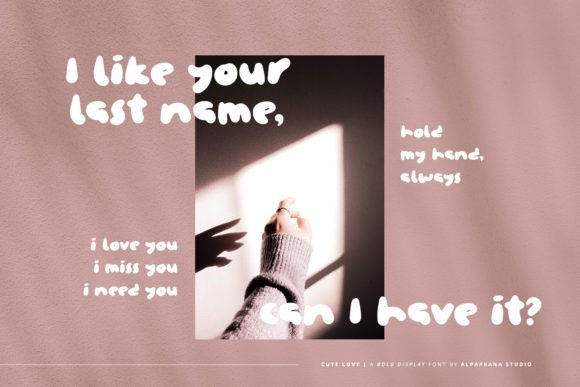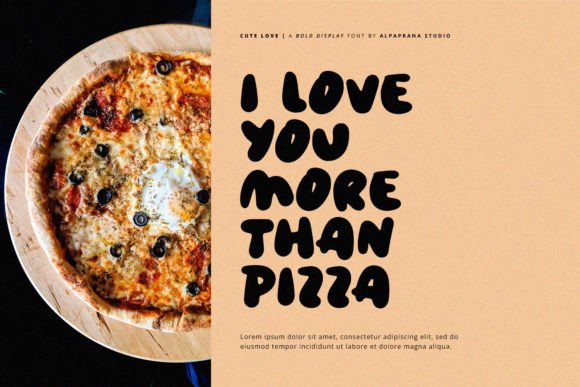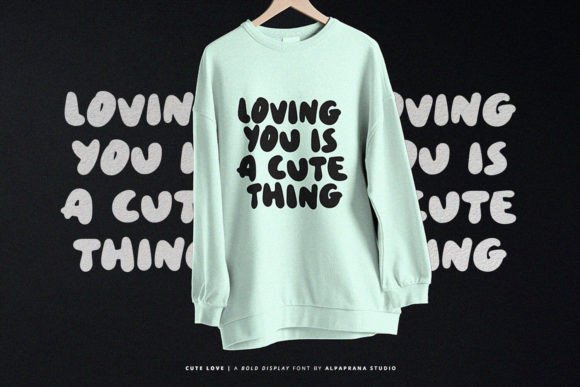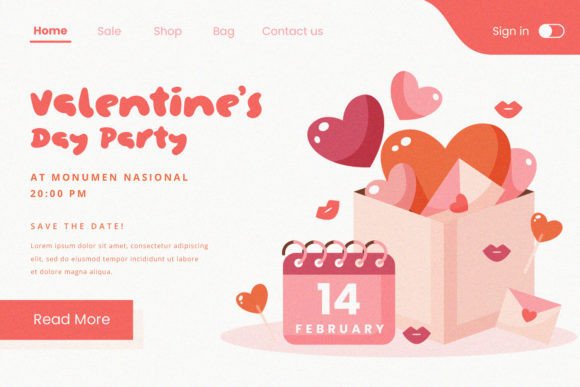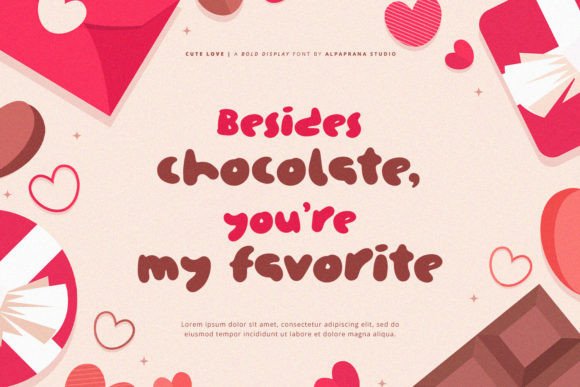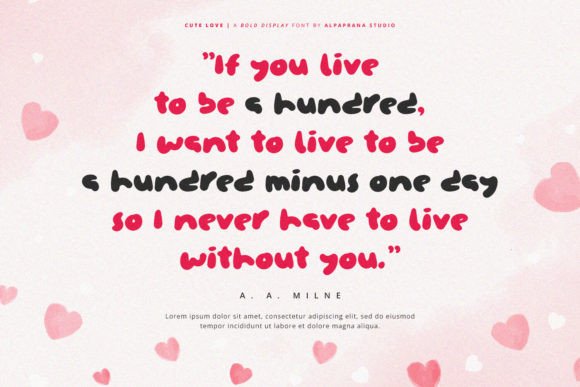
Cute Love Font: The Perfect Addition to Your Design Projects
Are you a designer or crafter looking for a font that exudes romance and modernity? Look no further than Cute Love Font! This display font is perfect for a variety of design projects, from magazines and packaging to posters and t-shirts. In this article, we’ll dive into the features and benefits of Cute Love Font, and explore how it can elevate your designs.
What is Cute Love Font?
Cute Love Font is a display font designed with romantic and modern feels. Its unique and stylish lettering makes it perfect for designs that require a touch of elegance and sophistication. The font is versatile and can be used for a wide range of projects, including:
- Magazines and editorials
- Packaging and branding
- Shopping bags and promotional materials
- T-shirts and apparel
- Book covers and publishing
- Photography and graphic design
- Special events and weddings
Features of Cute Love Font
Cute Love Font has several features that make it a standout choice for designers and crafters. Some of its key features include:
- Romantic and modern design: Cute Love Font has a unique and stylish lettering that exudes romance and modernity.
- High-quality and legible: The font is designed to be highly legible, making it perfect for use in a variety of design projects.
- Versatile and flexible: Cute Love Font can be used for a wide range of projects, from small-scale designs like t-shirts and flyers to large-scale projects like billboards and magazines.
- Easily customizable: The font can be easily customized to fit your design needs, including adjusting the size, color, and style.
Benefits of Using Cute Love Font
Using Cute Love Font in your design projects can have several benefits, including:
- Adding a touch of elegance and sophistication: Cute Love Font can add a touch of elegance and sophistication to your designs, making them stand out from the crowd.
- Conveying romance and emotion: The font’s romantic and modern design makes it perfect for conveying emotion and sentiment in your designs.
- Enhancing brand identity: Cute Love Font can be used to enhance brand identity and create a consistent visual style across different design projects.
- Saving time and effort: The font’s high-quality and legible design can save you time and effort in creating custom designs from scratch.
Tips for Using Cute Love Font
Here are some tips for using Cute Love Font in your design projects:
- Use it sparingly: Cute Love Font is a display font, so it’s best to use it sparingly to create emphasis and add visual interest to your designs.
- Pair it with other fonts: Cute Love Font can be paired with other fonts to create a unique and stylish visual style.
- Adjust the size and color: Experiment with different sizes and colors to find the perfect combination for your design.
- Use it consistently: Use Cute Love Font consistently across different design projects to create a cohesive visual style.
Cute Love Font is a versatile and stylish display font that can add a touch of elegance and sophistication to your design projects. Its romantic and modern design makes it perfect for conveying emotion and sentiment, while its high-quality and legible design makes it easy to use and customize. Whether you’re a designer or crafter, Cute Love Font is a great addition to your font collection.